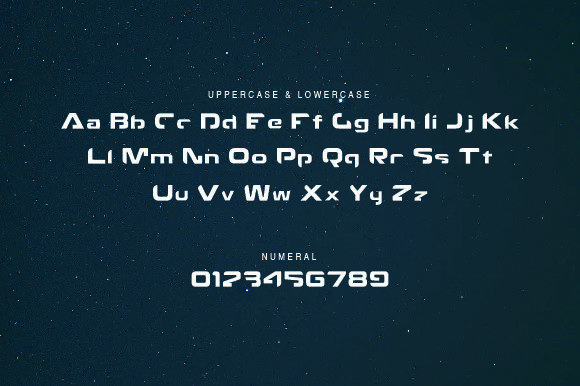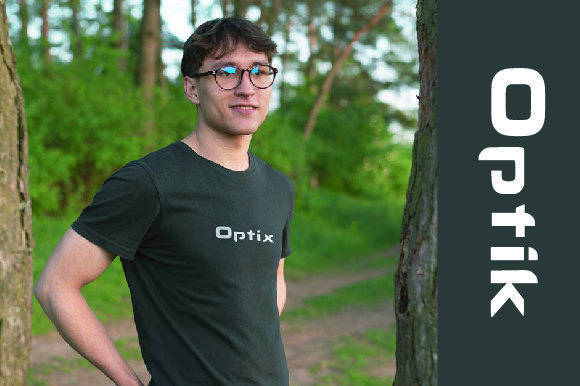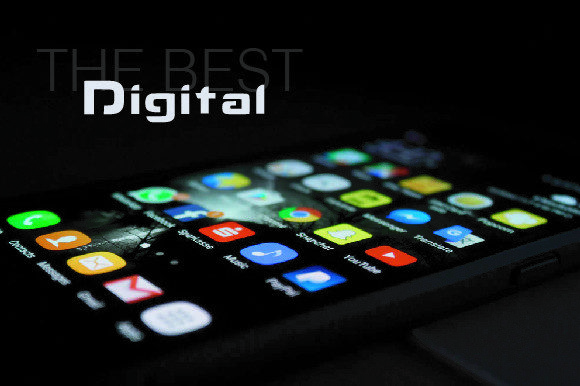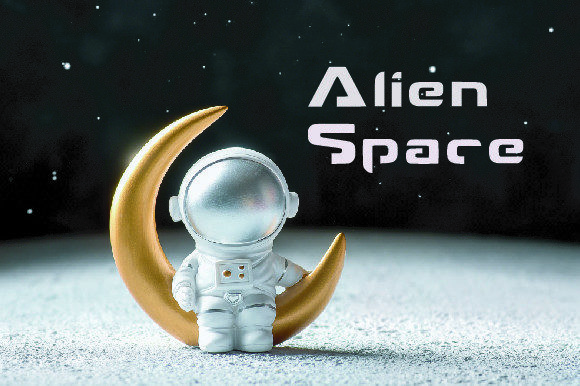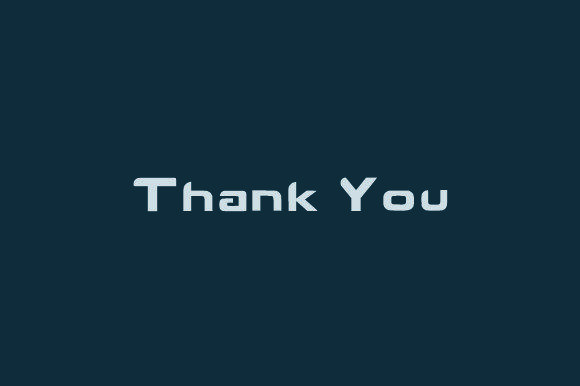
Introduction to Paten Font
Paten is a cool and modern looking display font.
This font is ideal for writing web designs, business cards, or pretty much anything else that requires a techno touch .
Key Features of Paten Font